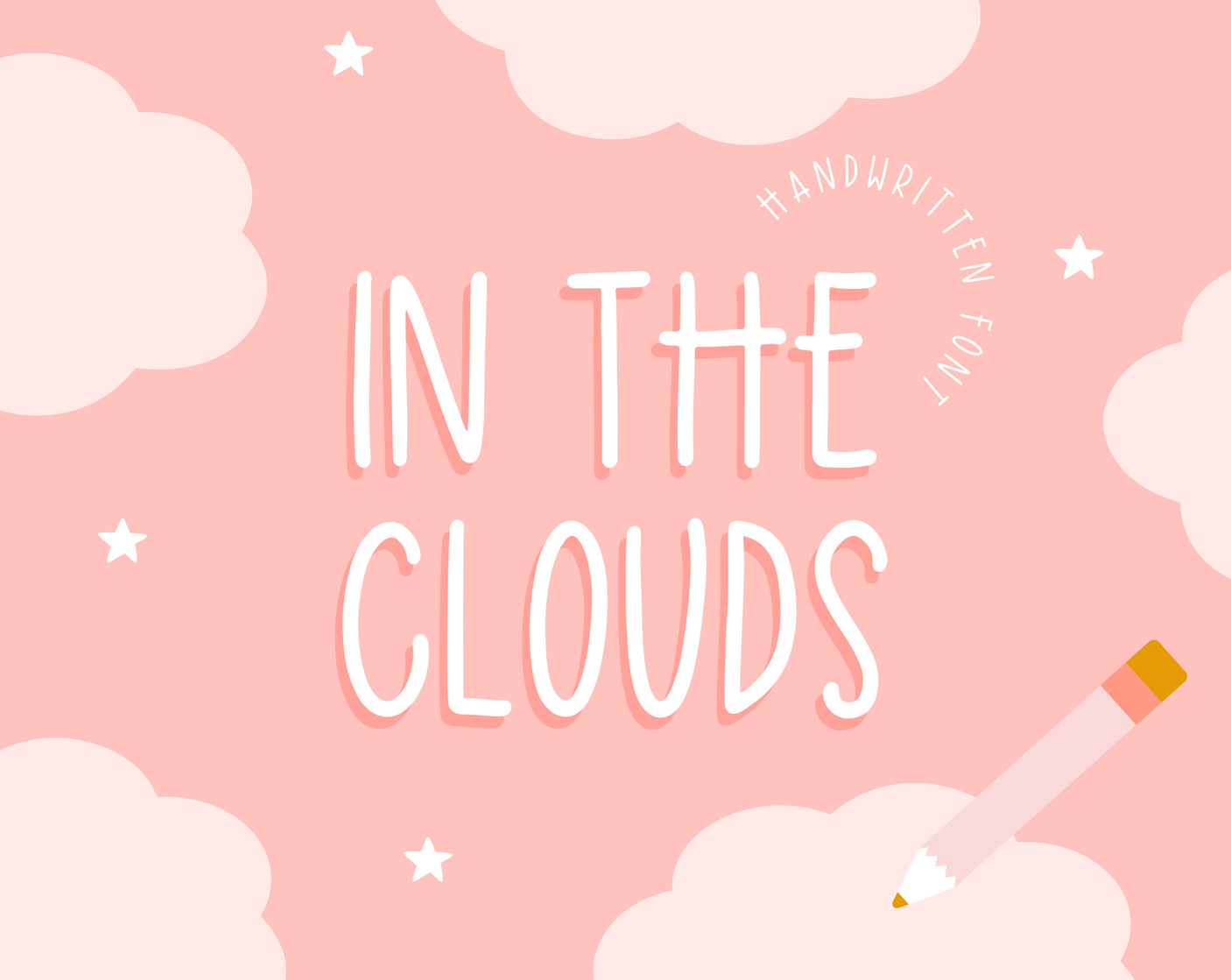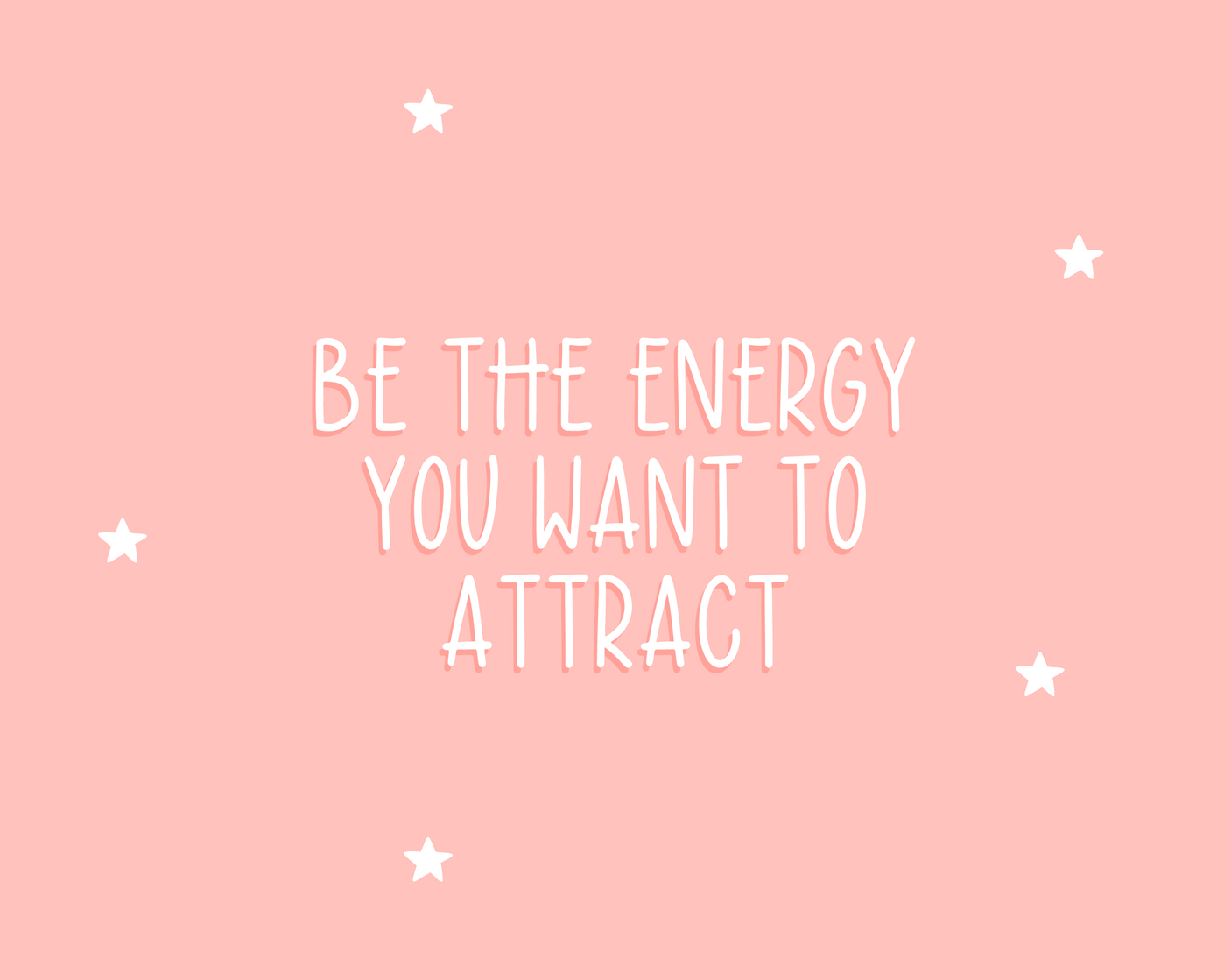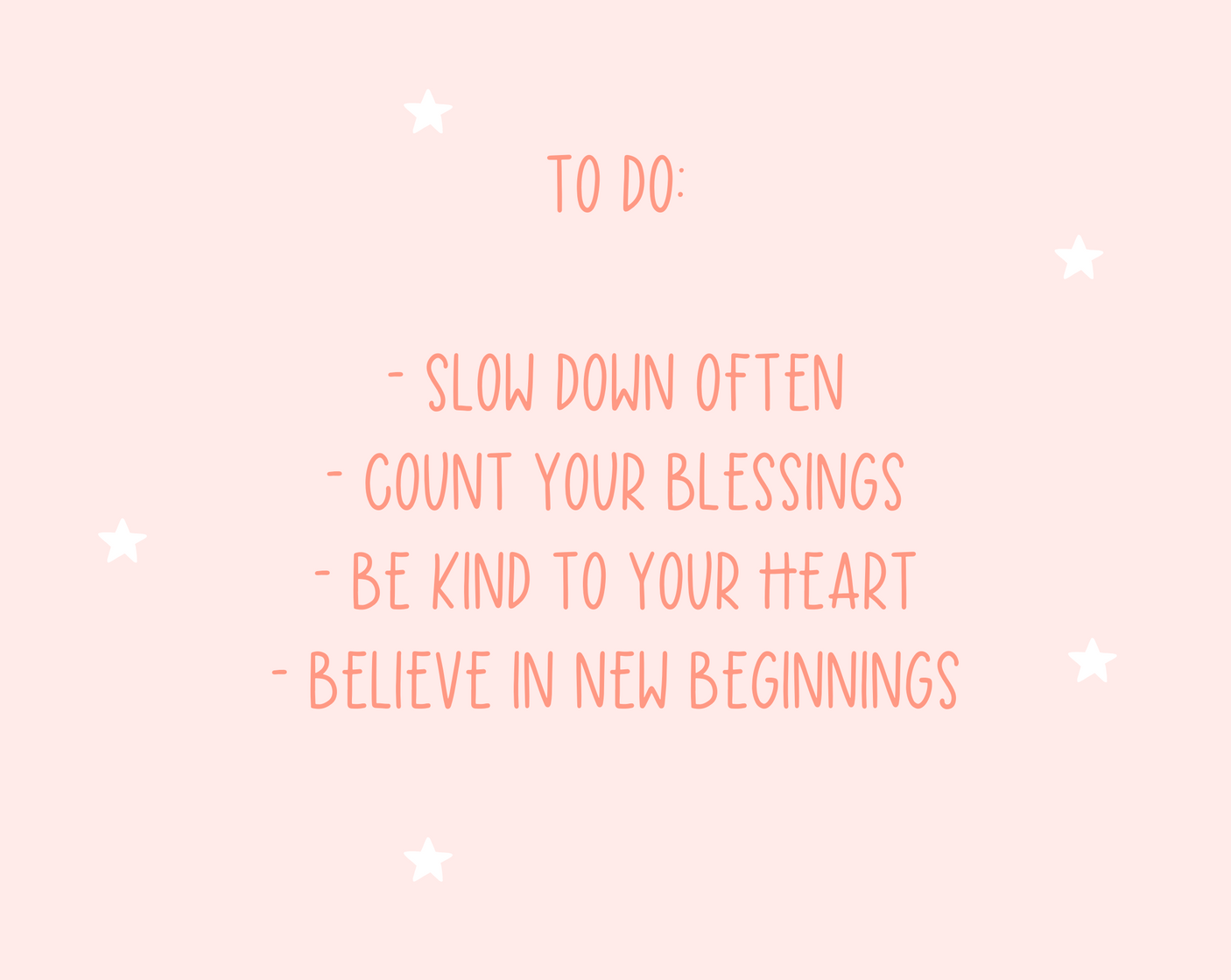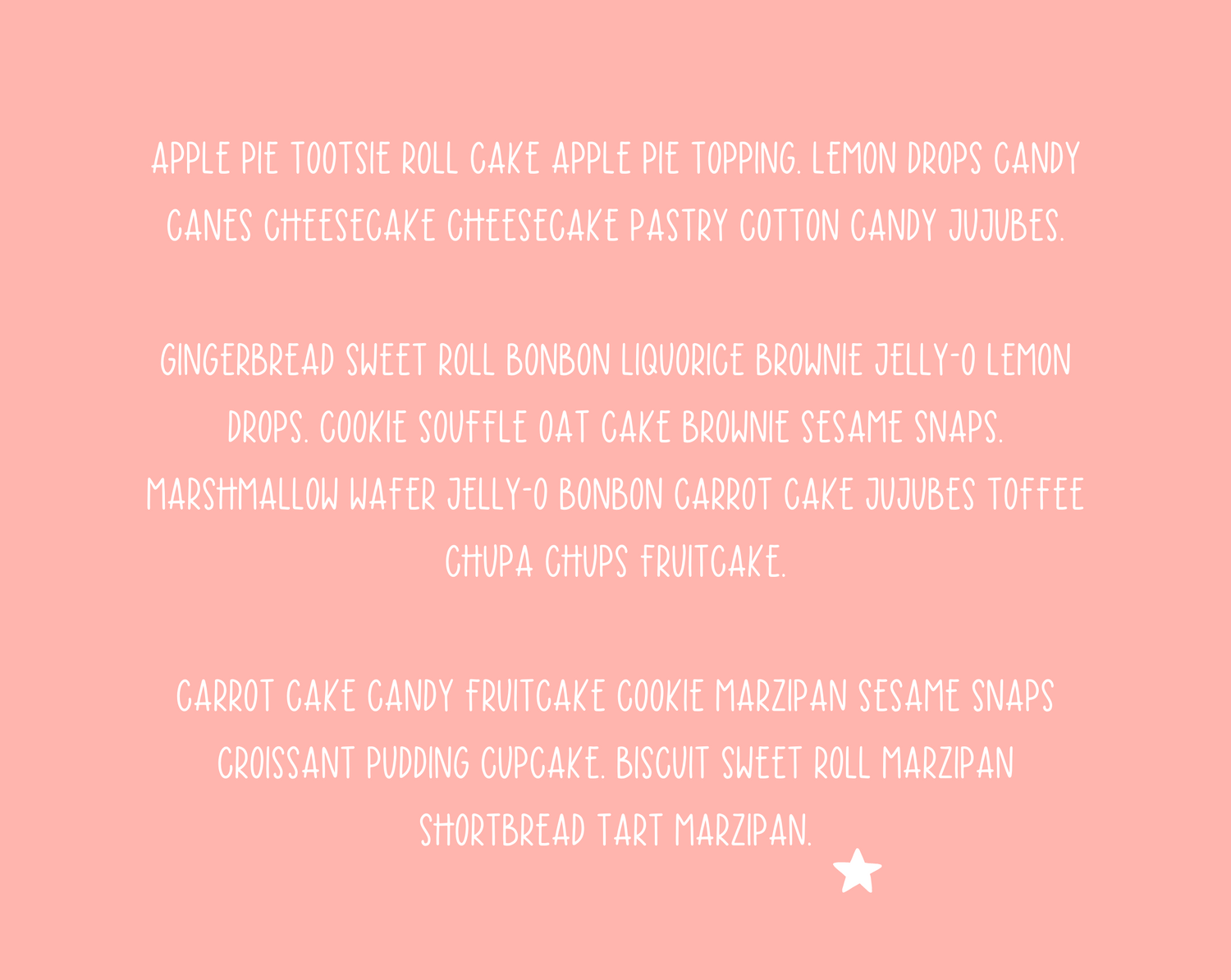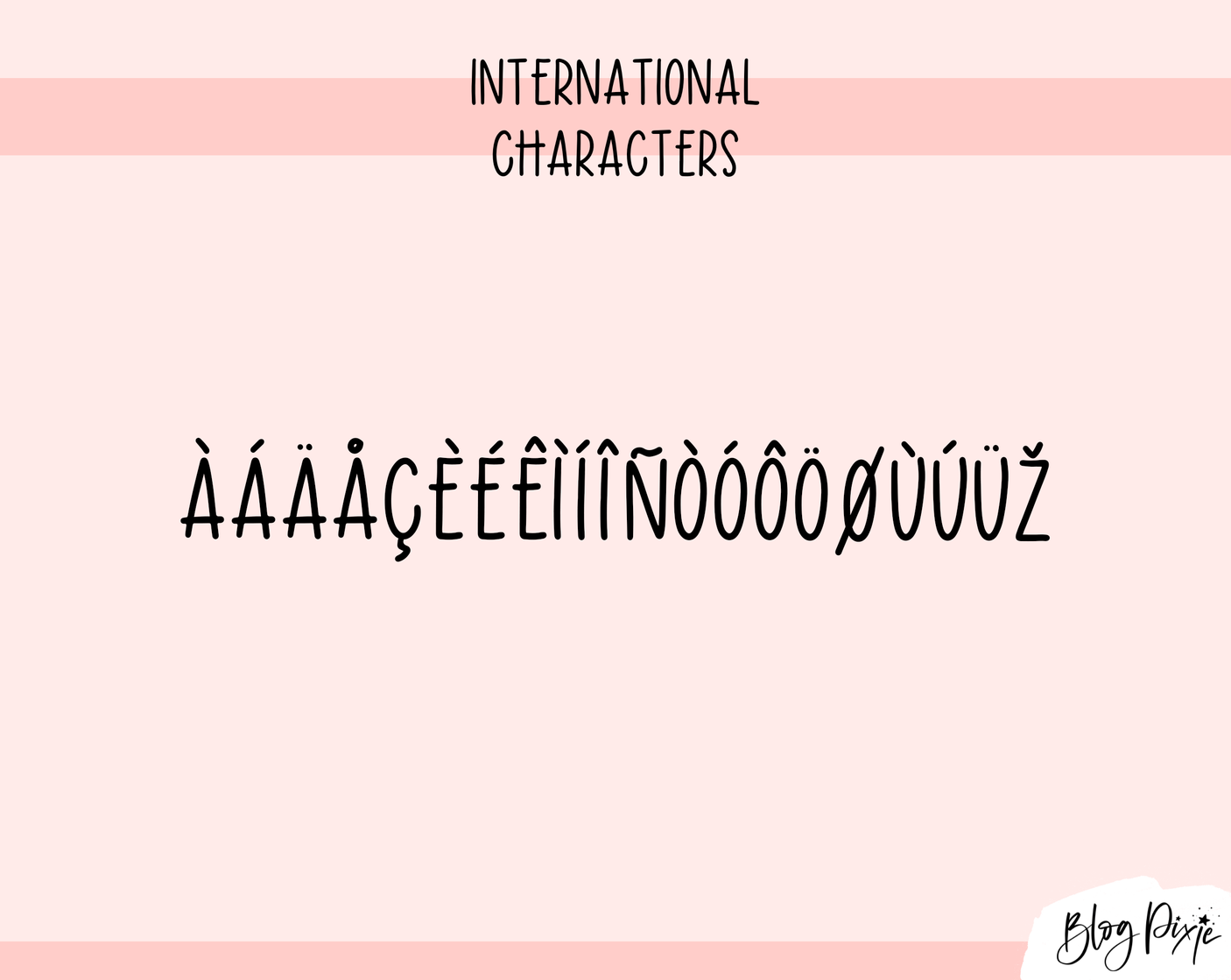
In The Clouds Font
Handwriting font for your digital planner called In The Clouds. This font can be used for Cricut, Procreate, Goodnotes, iPad and more. It’s a neat handwritten all-caps font for digital planning, note-taking, logos, crafty work and digital projects.